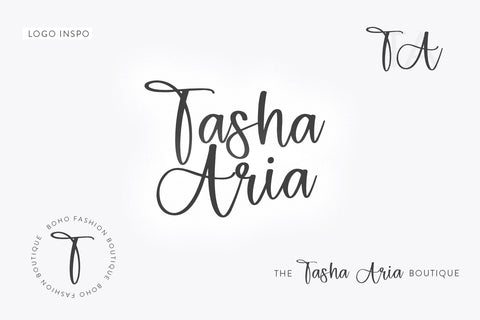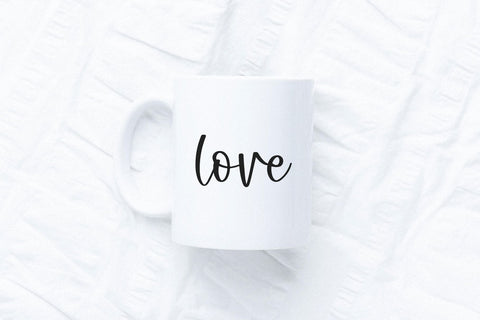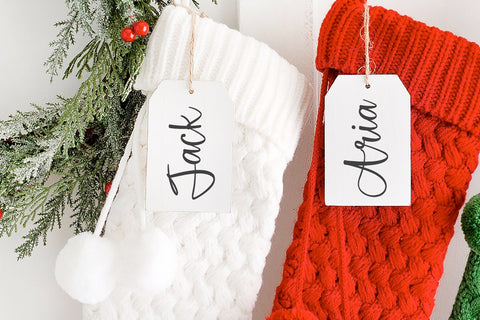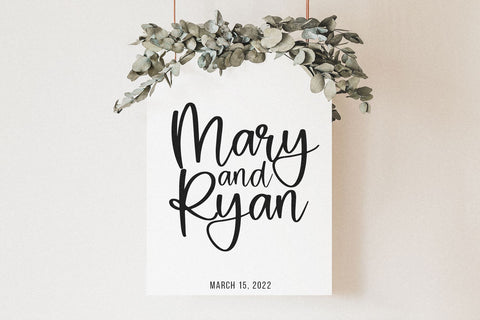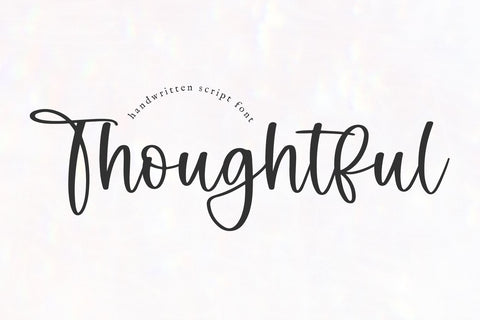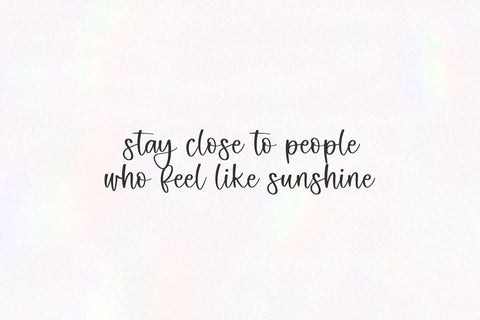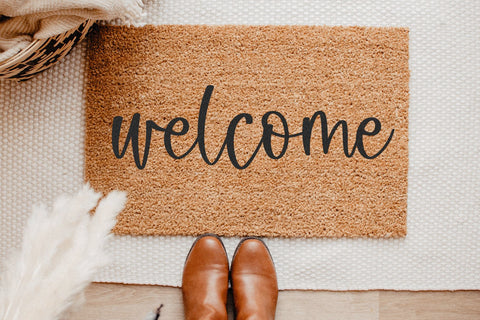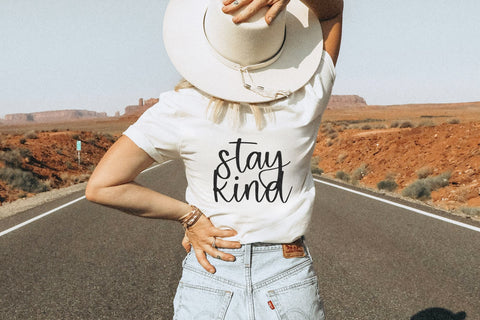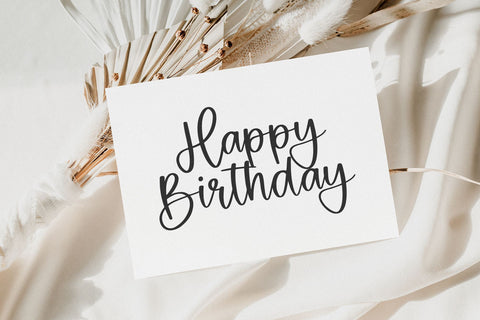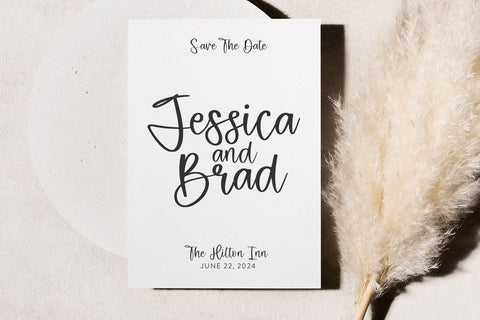
Thoughtful - Modern Script Font
Thoughtful is a modern handwritten script font.
This font is perfect for wedding decor, signs, doormats, farmhouse designs, procreate, cricut projects, branding, blogs, logos, invitations and more!